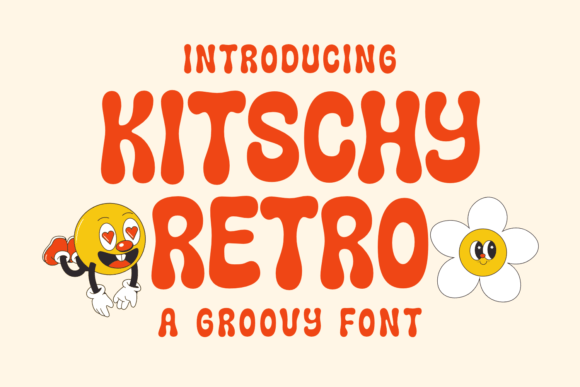
Introducing the Kitschy Retro Font - the ultimate choice for anyone looking to add a touch of vintage flair to their design projects! This fun and groovy display font is created by Letterfly Studio and is specially designed to help your creative ideas reach new heights.
If you're searching for the best fonts for vintage logos, Kitschy Retro Font is the perfect fit. With its funky and eye-catching style, this font is ideal for businesses looking to create a brand identity that stands out from the crowd.
Whether you're working on a music poster, album cover, or packaging design, Kitschy Retro Font will make sure your project is the talk of the town. The font is carefully crafted with attention to detail, making it a true favorite for designers of all skill levels.
Kitschy Retro Font is not just a font, but an emotion. It evokes a sense of nostalgia and takes you on a trip down memory lane. The font is perfect for anyone who wants to add a touch of retro charm to their designs.